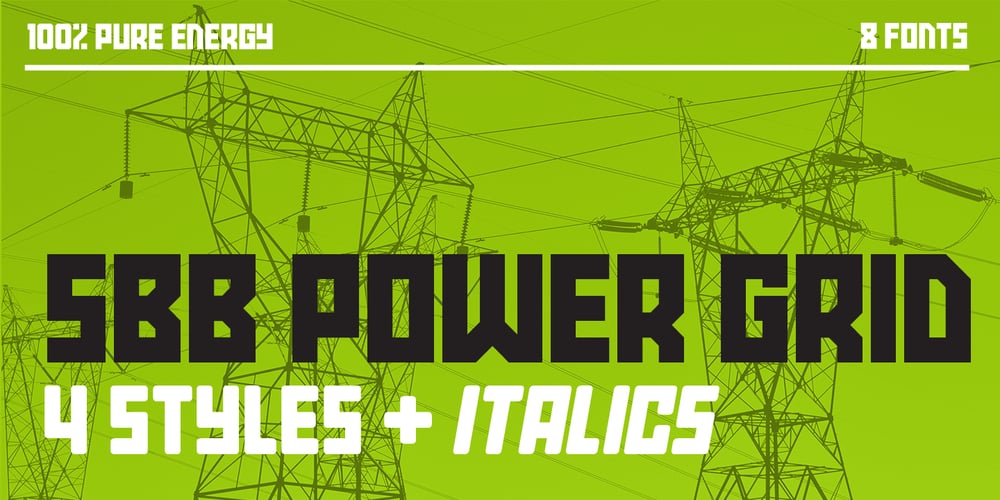
SBB Power Grid
SBB Power Grid font
SBB Power Grid Font Family was designed by Bob Wertz and published by Sketchbook B. SBB Power Grid contains 8 styles and family package options. Powerful and angular. Power Grid comes in four versions: Regular, Stencil, Inline and Rounded. Inspired by 1920s constructivist posters, it’s perfect for industrial and bold applications. Power Grid is all caps and includes a handful of alternate glyphs. 8 fonts 4 styles: Regular, Stencil, Inline and Rounded Alternate characters